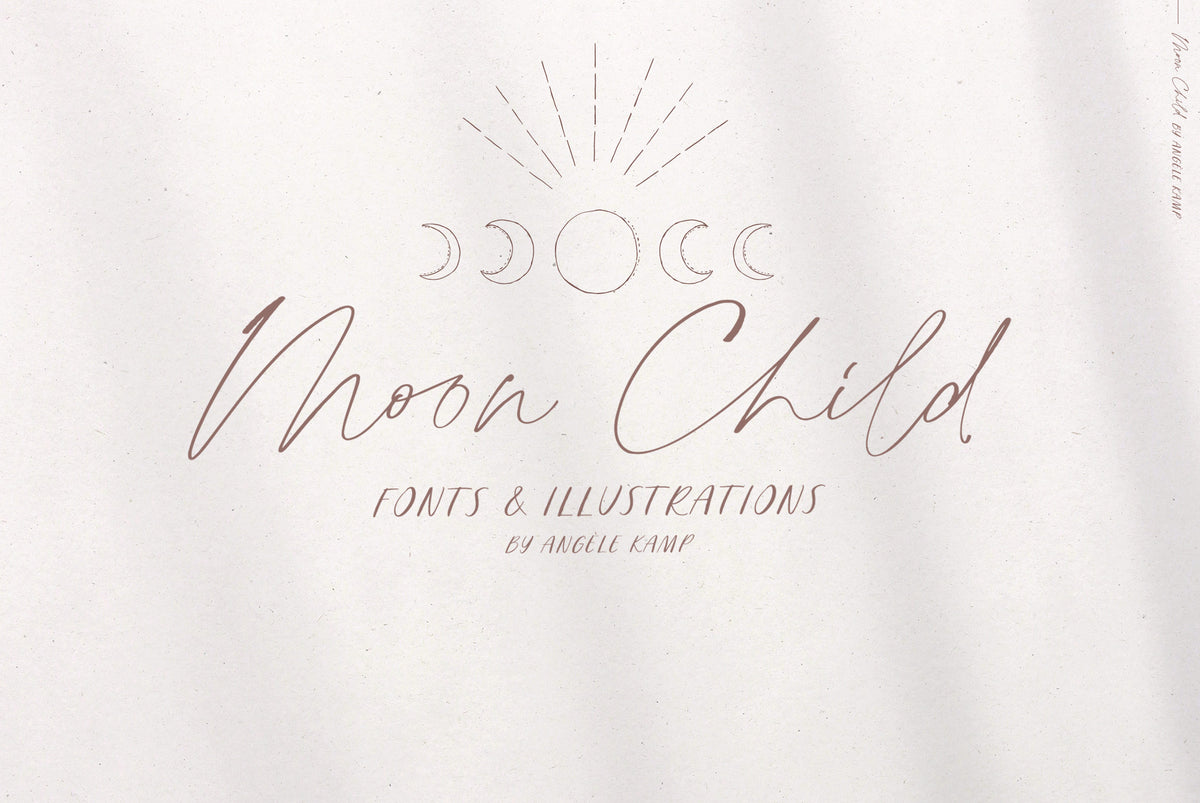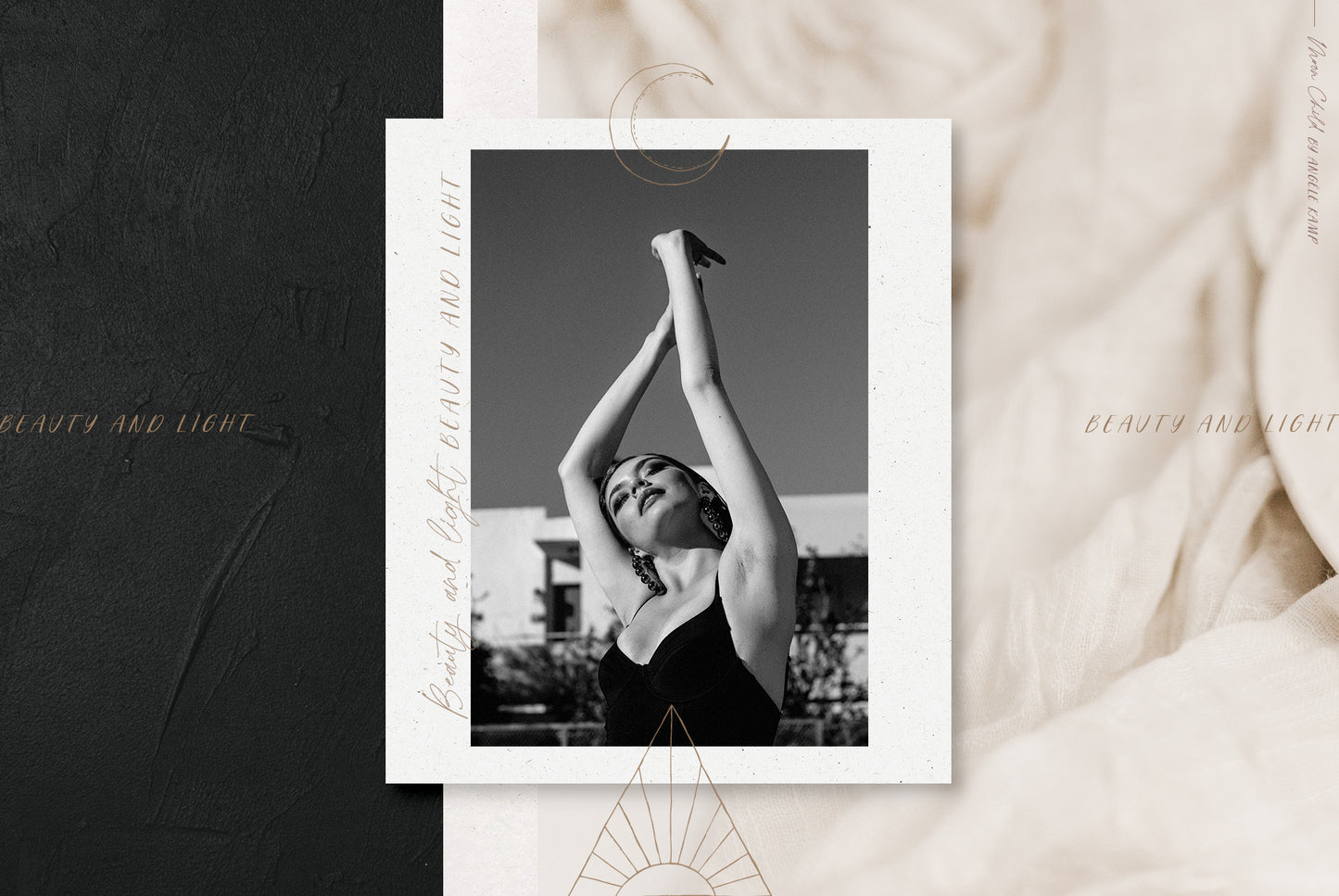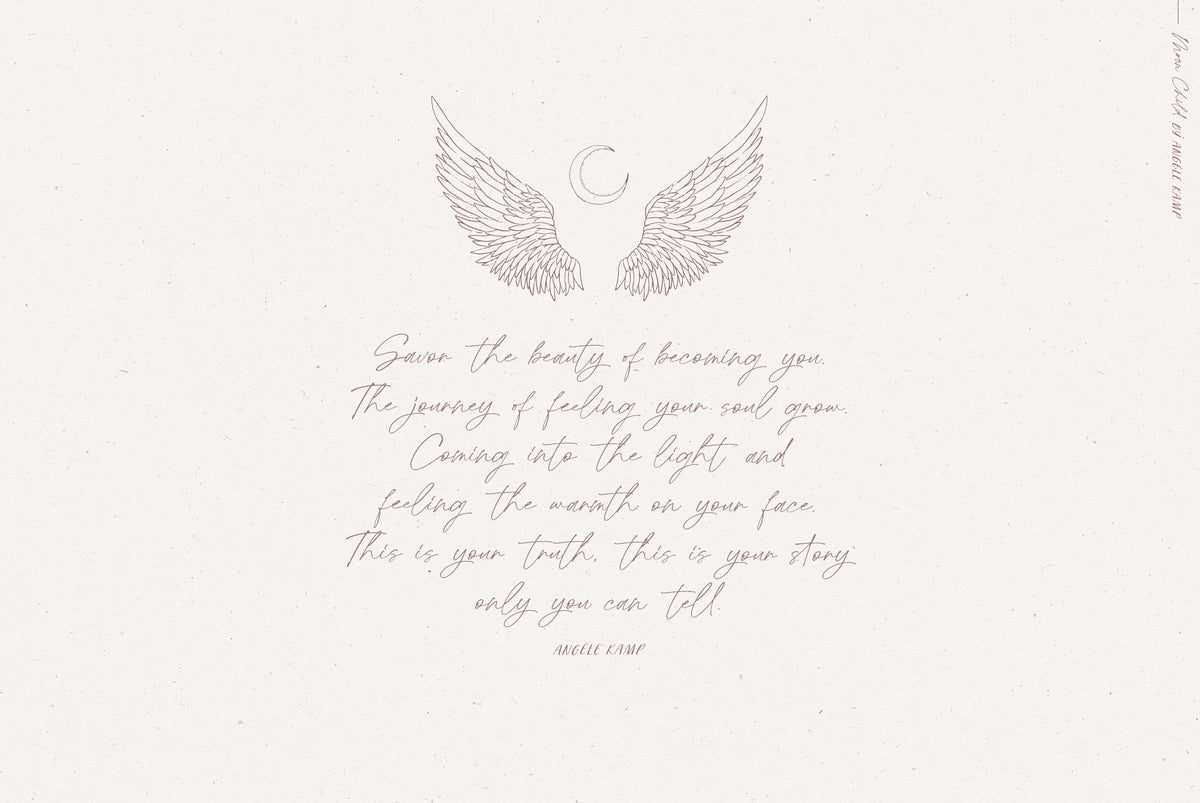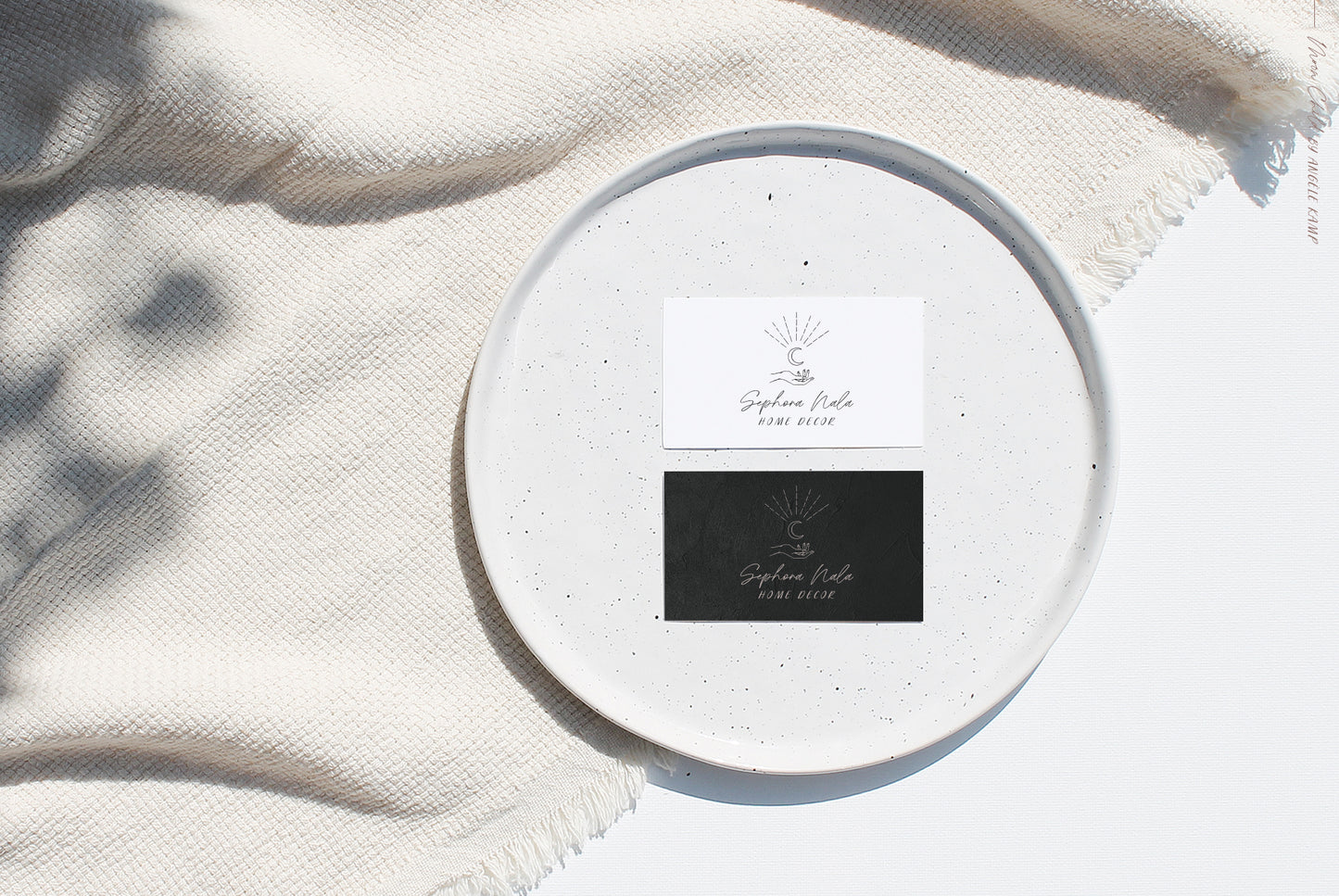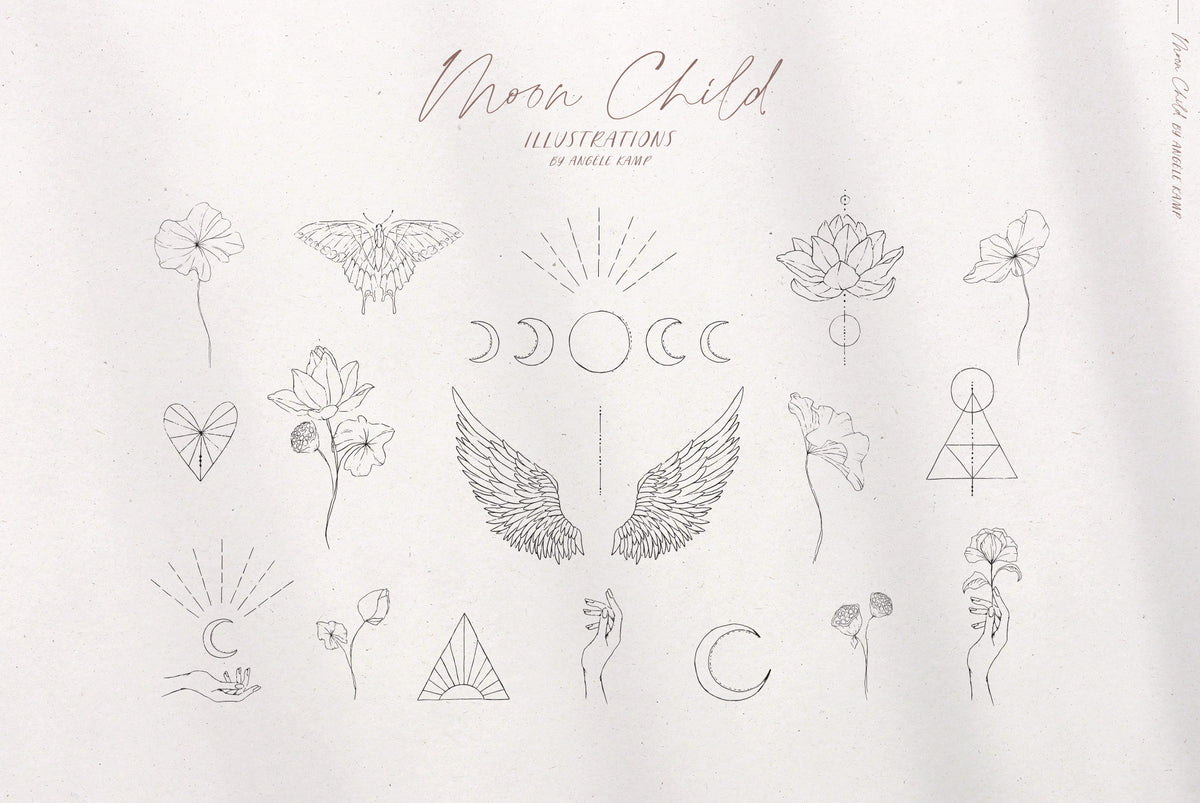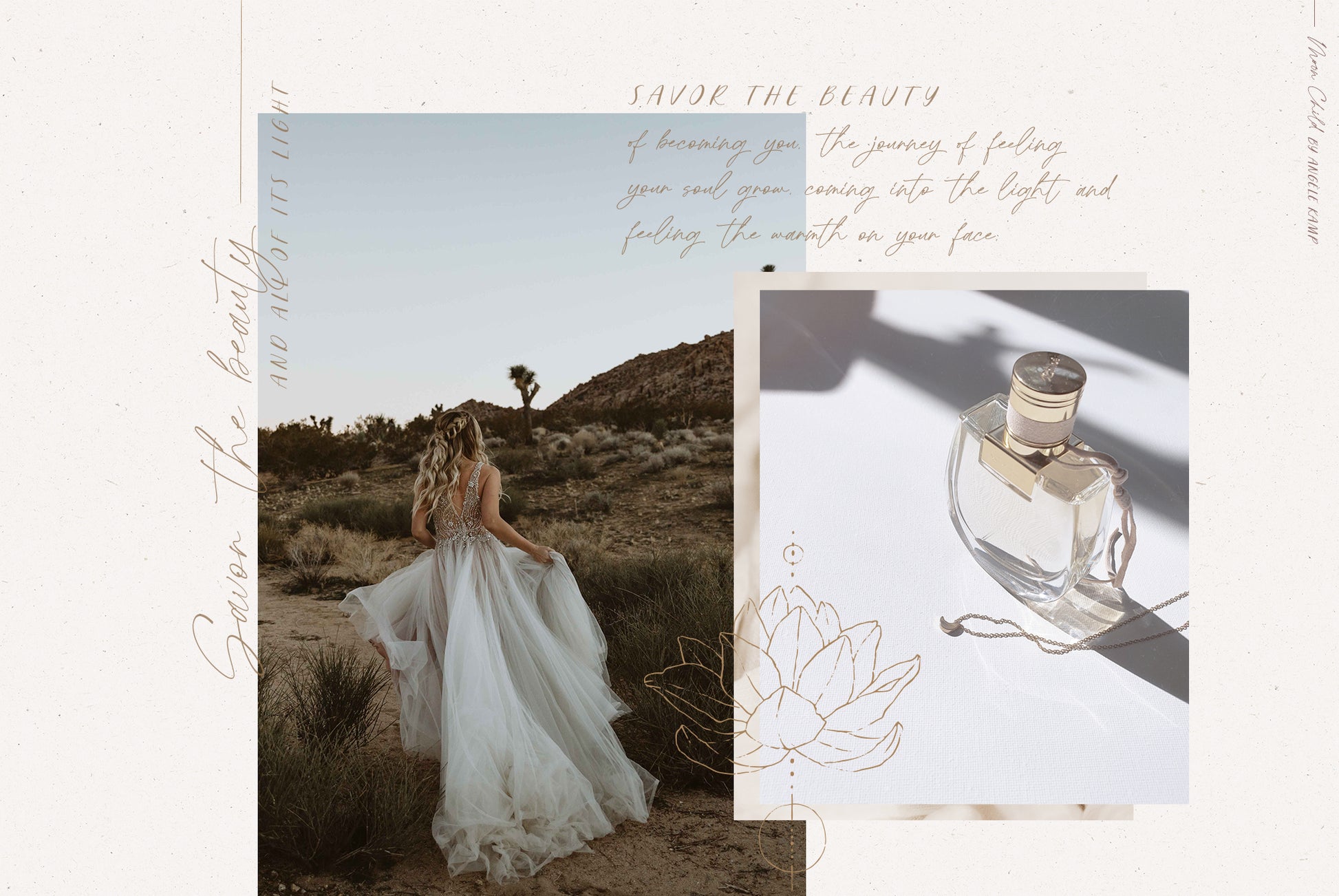
Moon Child font and illustrations by Angele Kamp
Moon Child fonts
Introducing Moon Child, an elegant collection of fonts & illustrations. This beautiful collection includes two fonts that pair perfectly together and illustrations that will make designing Instagram quotes, websites & invitations effortless.
Moon Child (OTF, WOFF) An elegant script font that includes ligatures that give you that gorgeous hand-lettered look.
Moon Child Caps (OTF, WOFF) This is an all caps font that pairs perfectly with the script font
Moon Child Illustrations (19 PNGs, 1 vector EPS) As a bonus you will receive 19 beautifully hand-drawn illustrations that complement the fonts perfectly.